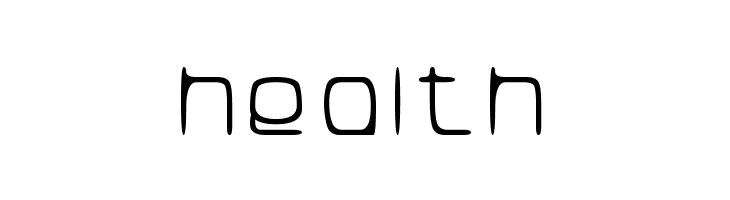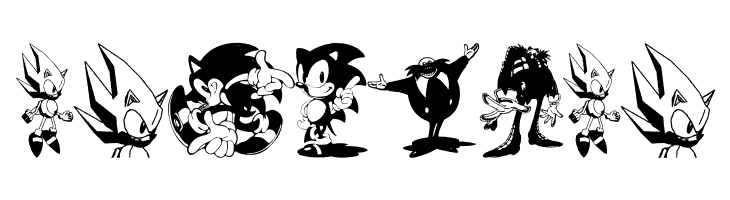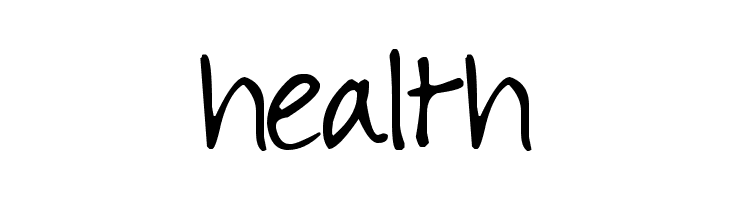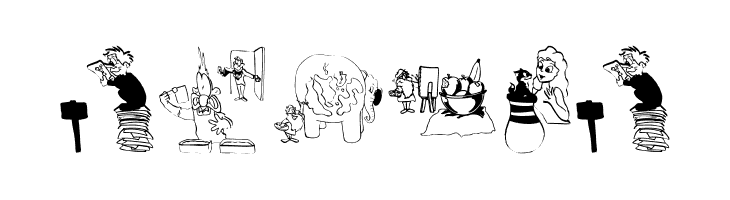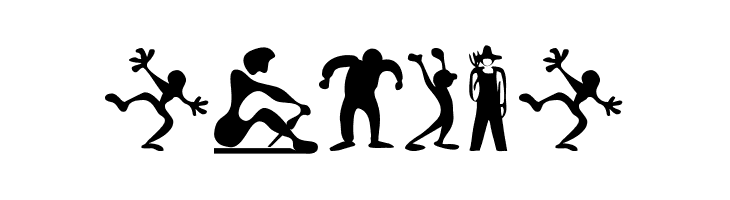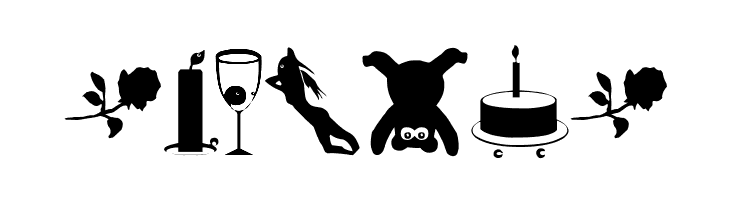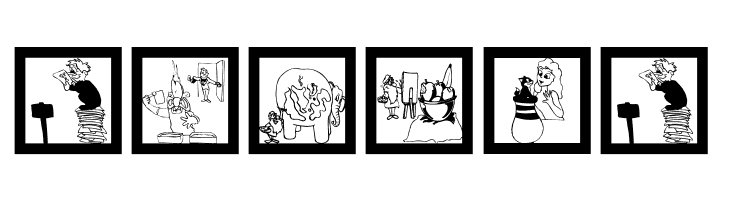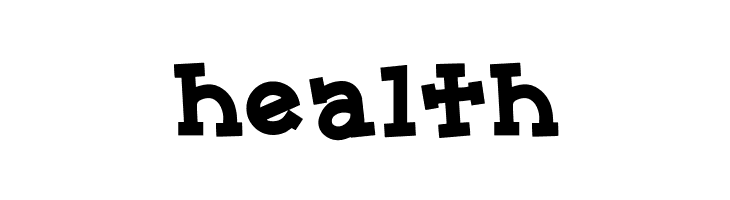
• SNORG_002
A futuristic, geometric font with rounded edges and a sleek, modern design.
• SociaLAnimaL
• Socially Awkward
A casual, handwritten font with a playful and authentic style.
• SomeArtistsOne
Cartoonish, artist-themed pictorial font with each character as a unique illustration.
• SomeArtistsSquares
Cartoonish, hand-drawn squares featuring humorous artist scenes.
• SomeImprosBats
A decorative icon-based font with varied pictograms.
• SomeTypesSilhous
Silhouette pictogram font with human figures and activity icons.
• Sonic Mega Font
• Sonrits Regular
A classic serif font with elegant and well-defined characters.
• Sorority
A bold, playful font with quirky, irregular characters.